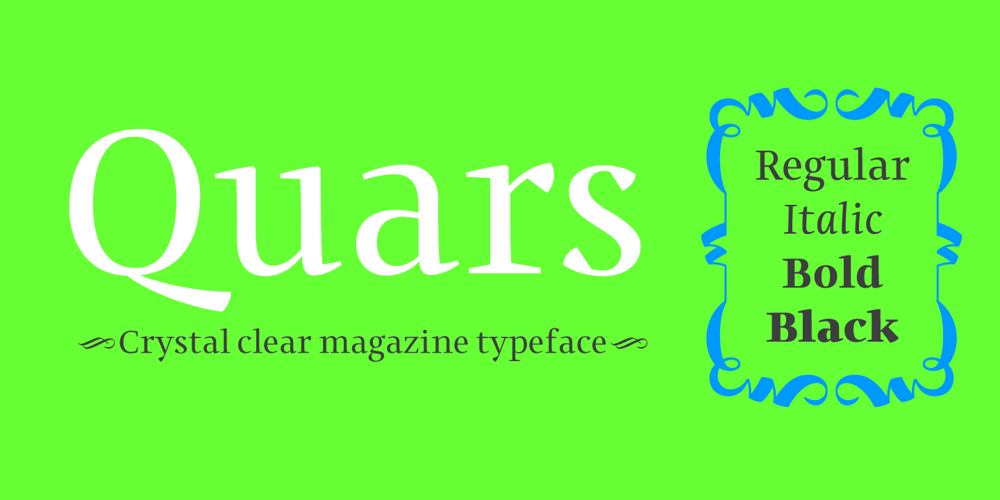
Quars Font Family was designed by Pilar Cano, Ferran Milan and published by Letterjuice. Quars contains 5 styles and family package options. Quars is a text and display typeface family designed to work on magazines. However, it is also suitable for books and other editorial material. It has a strong personality with elegant, sharp and contemporary features. This typeface comes from several subtle influences, from the contrast of the Scotch Romans to the sharpness of contemporary Dutch designers. Quars is a crystal clear and neat typeface full of small details, its structure is bursting with curves and accurate features which gives it its firm personality. Its italic experiments with the boundaries of italics themselves; with just 1 degree of slant Quars Italic accomplishes its purpose of highlighting pieces of text within its Roman. This carefully thought out inclination protects the uppercase from the usual distortion which Italic caps suffer. It offers a generous glyph set with many ligatures specially crafted for titling and ornaments based on anonymous metal types found in the drawers of an old printing workshop in a coast town near Barcelona.